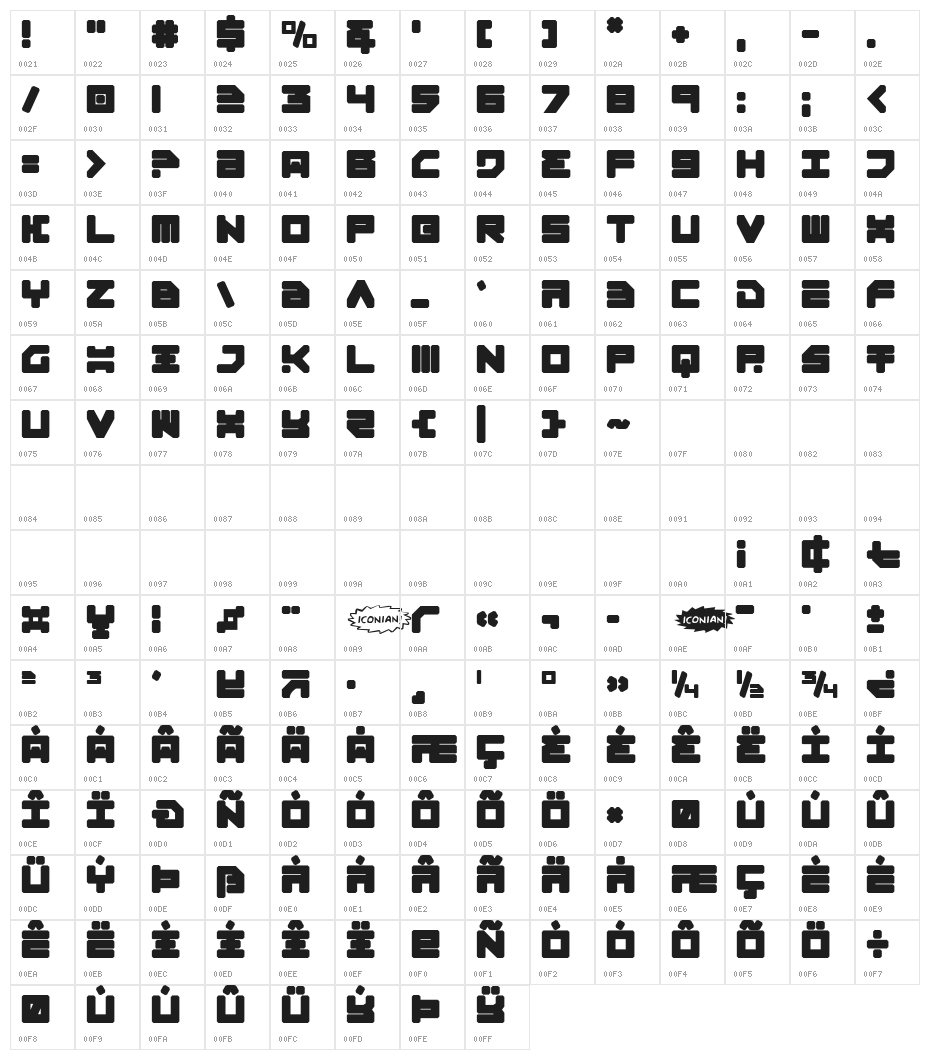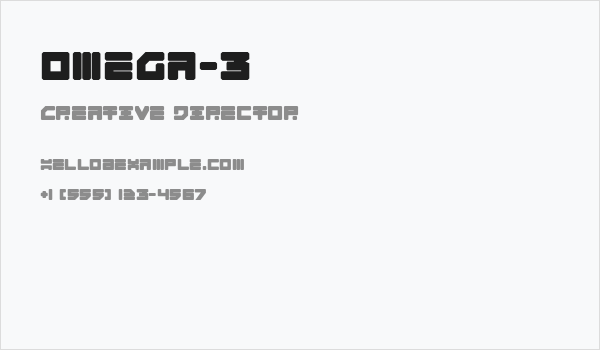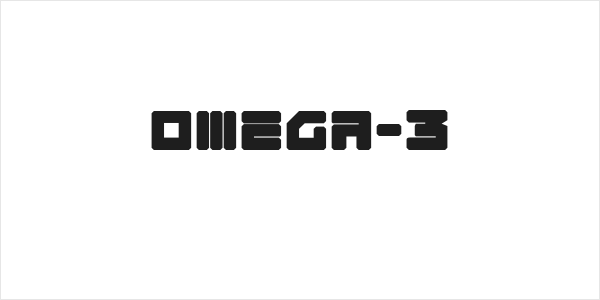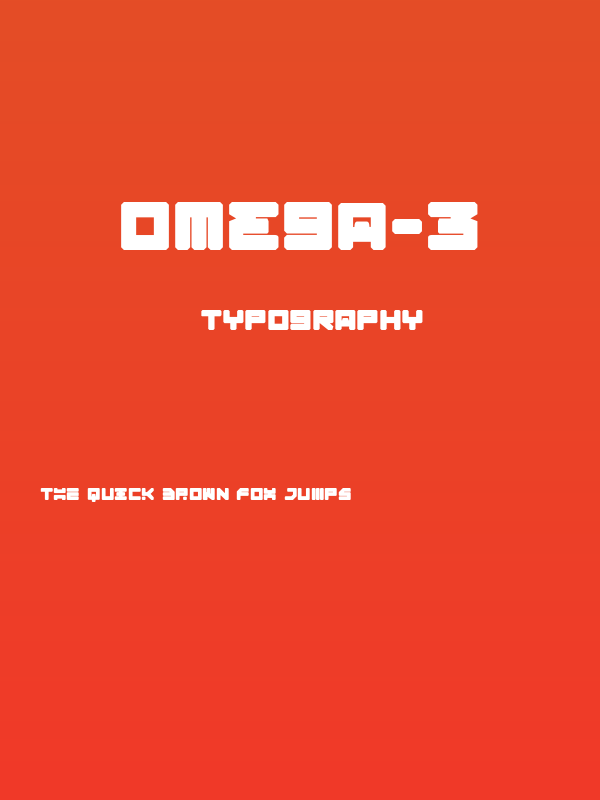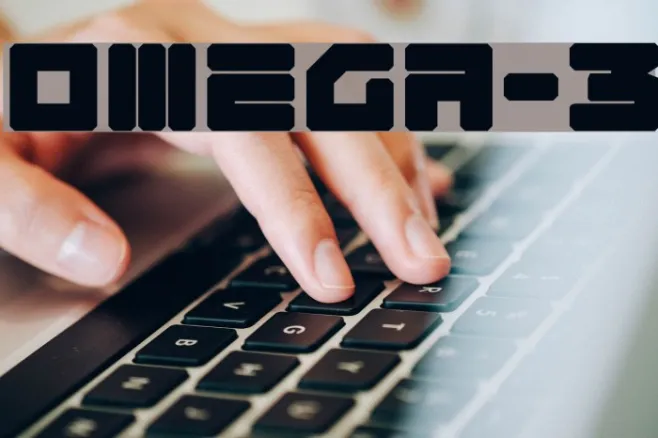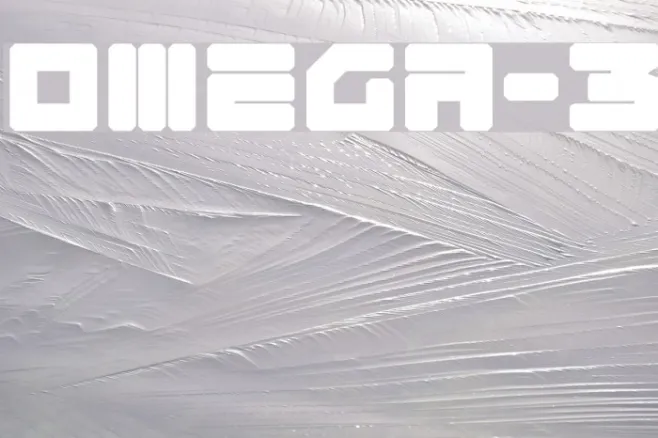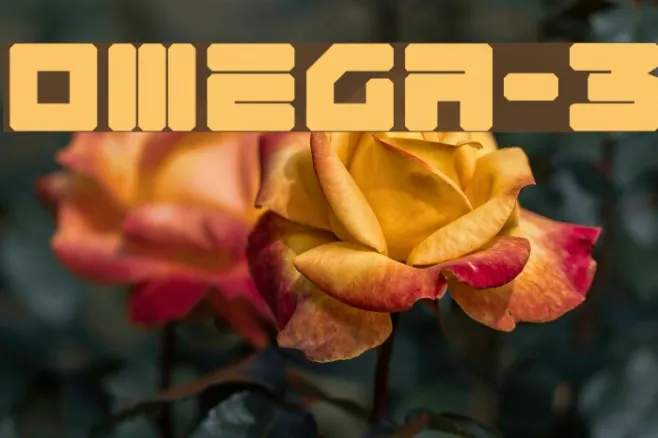
Omega-3 Font
Omega-3 Description
This font features a bold, futuristic design with a strong geometric influence. The characters are constructed with thick, uniform strokes that create a sense of solidity and strength. The angular shapes and rounded edges give it a modern, tech-inspired look. The uppercase and lowercase letters maintain a consistent style, with the lowercase slightly smaller but equally bold. Numbers and special characters follow the same design principles, ensuring a cohesive appearance across all glyphs. The overall aesthetic is both striking and versatile, suitable for a variety of digital and print applications.
| Proposed Projects | Ideal for technology branding, video game titles, sci-fi book covers, and modern posters. |